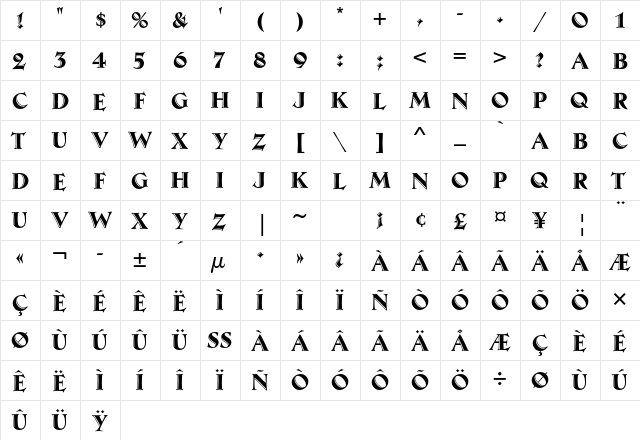
Ambrose Std Regular Font Preview
Ambrose Std Regular
Ambrose Std Regular Font Details
| Designer | Alan Meeks |
Design Context for Ambrose Std Typeface
Ambrose Std is a composed and adaptable typeface that performs quietly and consistently across a wide range of design contexts.